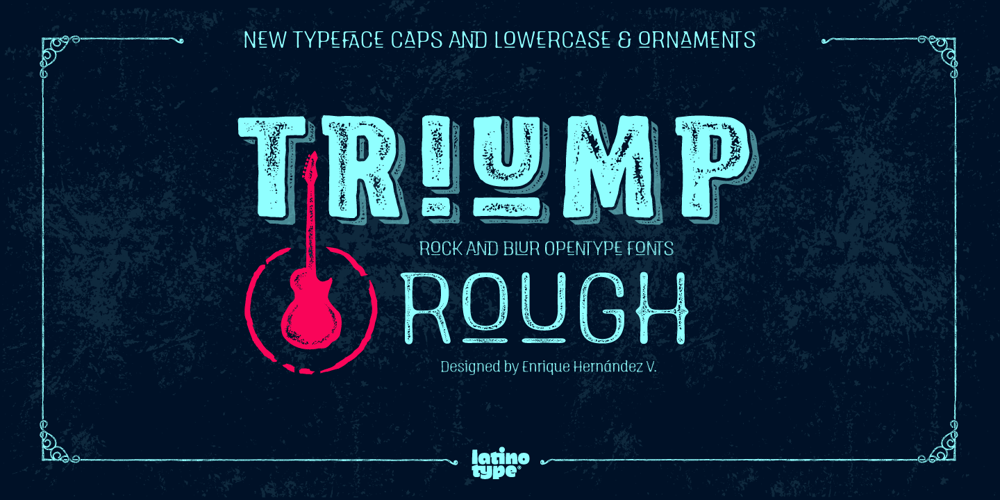
Triump Rough Font Family was designed by Enrique Hernández and published by Latinotype. Triump Rough contains 26 styles and family package options. The Triump Rough typeface comes with 2 different subfamilies: Blur, a soft, delicate font with a vintage and hipster feel that gives your design a breath of fresh air; and Rock, a strong, hard font in upper and lower case well-suited for high-impact headlines. This version provides a wide variety of OpenType features, such as ligatures, alternates and catchwords as well as a series of ornaments and extras, which help give your artwork a different look!